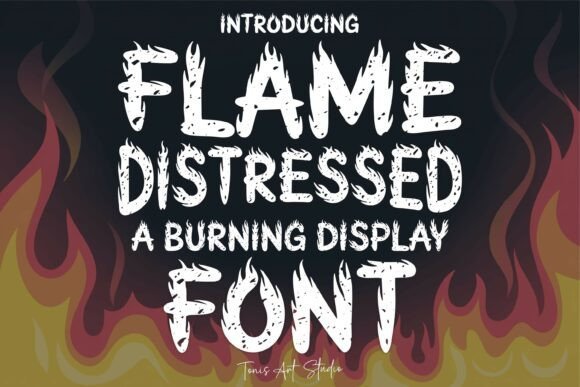
Unleash Your Inner Artist with the Flame Distressed Font
You know that moment when you’re brainstorming a new design project, and suddenly, a spark of inspiration hits you? That’s exactly what happens when you work with the Flame Distressed Font. This bold and fiery display typeface is designed to bring intensity and dramatic impact to your projects, making it perfect for anything from t-shirts and posters to sports graphics and music artwork.
The Flame Distressed Font is more than just a stylish addition to your designs – it’s a powerful tool that can take your creations to the next level. With its sharp flame accents and rugged distressed style, this font is ideal for designers who want to add movement, heat, and attitude to their words. Whether you’re working on motivational quotes, edgy apparel, or spooky seasonal crafts, the Flame Distressed Font is sure to set your designs ablaze with unforgettable style.
Flame Distressed Font Key Features
- Font Family: A unique, distressed font family designed to resemble flames, ideal for adding a fiery touch to designs.
- Character Set: Includes uppercase and lowercase letters, numerals, and special characters, making it suitable for a wide range of applications.
- Unique Characteristics: Distressed texture and flame-like effects add a dynamic, eye-catching element to designs, perfect for creating a bold and edgy look.
Designer Review: Flame Distressed Font
Overall, I’d say Flame Distressed Font is a decent choice for designers looking to add some texture and grit to their designs. ✨ It’s perfect for those who want to create a distressed or worn look, especially for branding or marketing materials.
- ✨ It’s highly customizable, allowing designers to adjust the level of distressing and the color palette to suit their needs.
- ✨ The distressed effect adds a unique touch to designs, making them stand out from the crowd.
However, there are some limitations:
- ⚠️ The font may not be suitable for all types of designs, such as formal or professional materials.
- ⚠️ Some users may find the level of customization overwhelming, which can lead to design inconsistencies.
Overall, Flame Distressed Font is a solid choice for designers who want to add some edge to their designs. While it has its limitations, it’s a great option for those who want to experiment with a unique look.
Some common use cases for the flame distressed font include:
- Adding a distressed effect to a logo or branding element
- Creating a worn, weathered look for a historical or vintage-themed design
- Adding a rugged, industrial feel to a design
- Creating a bold, eye-catching headline or title
Remember to experiment with different font sizes, colors, and effects to get the most out of the flame distressed font.